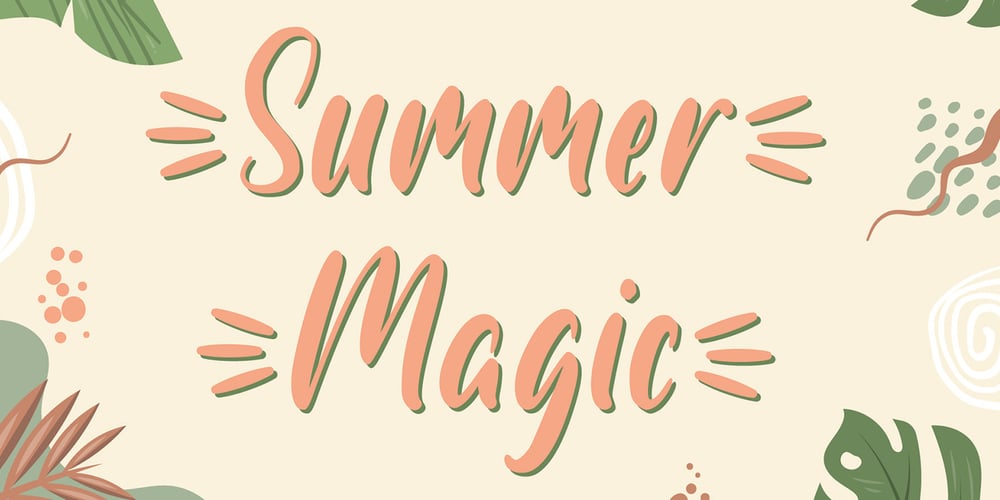
Summer Magic Font Family was designed by Sigit Dwipa and published by Nirmana Visual. Summer Magic contains 1 styles and family package options. Introducing Summer Magic,Perfect for everything from branding to crafting. This versatile font is great for merchandise, products, quotes, editorial, posters or whatever design you have in mind. This is a great font for crafters.Thank you and Happy Crafting!